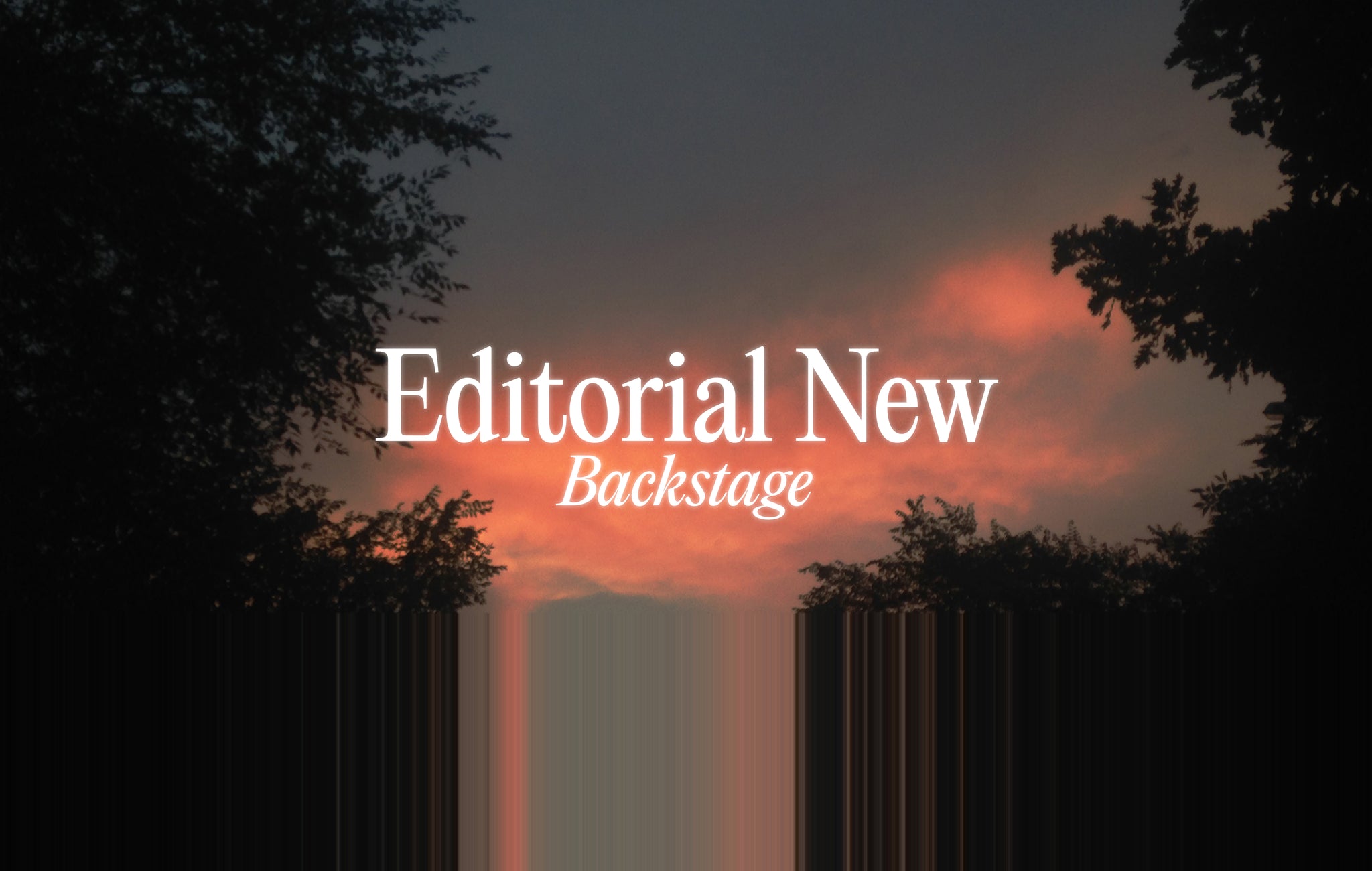
Welcome back to backstage. The series where we dive into the ins and outs of the behind-the-scenes of designing typefaces. And this time, the focus is on a Pangram favourite, Editorial New.
It really does seem to pop up everywhere – from small indie publications (feat. a shameful plug to our own self-published endeavour) and premiere magazine titles to fashion giants and sportswear juggernauts. At its core, Editorial New is an elementary, narrow, serif – perhaps with a slight retro 90s font feel. However, it truly seems to have flown beyond the confines of its letterforms, having struck a chord at the core of the contemporary design scene, favoured by students and creative directors alike. From the elegance of the lighter weights, to the indulgent curves of the heavier weights, Editorial New has almost too much to give!
But where did this powerhouse of a typeface come from? Well, we’ve chatted to the dynamic duo Mat and Francesca about Editorial New’s storied history and the exciting future that lays ahead for it…
Mat, as the founder of Pangram Pangram, you’re involved in everything from the business side and the vision of the foundry to designing the typefaces themselves. How do you strike this balance, and how has it evolved as Pangram has evolved?
M: It’s exactly about that; Balance. Doing everything mostly by myself as the Foundry was growing was definitely a balancing act but I think the key was to stay focused on the goals and make sure I kept creating and getting inspired rather than getting too lost in all the administrative layers. The design and creation part of the foundry has always been the number 1 priority for me.
Onto Editorial New! Simply put, it’s an absolute fan favourite. Versatile but recognisable, genuinely elegant but equally sturdy, refined as body copy but personality-full as a headline — its flexibility has clearly struck a chord with designers! What was the inspiration behind it? How did you start drawing it?
M: The original goal was simple: I wanted to create a super versatile, slightly retro serif. Something inspired by the 1980s ads with the likes of Garamond and other curvy, generally tightly-spaced serifs. This was the base for it and it grew into something of its own shortly after drawing a few letters!
Were there any key turning points in the development of the typeface? Moments where you felt like everything fell into place? Or was it more of a gradual process?
M: I’d say a lot of typefaces I design are a gradual process. They rarely end up the way I imagined them at first. The process generally takes some time and since I continuously try to stay inspired, there are always new ideas coming in during the journey. That being said, I think that when the basic set of the Thin Master was done, I really felt good about the complete type and its potential!
Hey Francesca! One thing about typefaces is that they’re never really done — Type Designers constantly seem to rework and improve them. For Editorial New’s 2.0 version, how did you refine the typeface, and what improvements would designers see when they use it?
F: My main focus has been on the rebalance of weights & proportions, especially in the darker instances. These corrections are something that one can easily spot. However, other minor refinements wouldn’t be visible to a non-type designer’s eye but improve the font’s general comfort.
You also worked on the italics for Editorial New; how does that drawing process differ from drawing the uprights for a serif?
F: I love drawing italics, it comes naturally to me, and I have fun with it. That is one of the first significant and personal differences. There are many kinds of italics also, and a True Serif Italic is what I love to draw most. True italics means not just slant — the construction of the letter changes entirely from the upright.
How do you find the process of developing and refining a typeface that already exists in some form? Does the process differ from when you design one yourself from scratch?
F: First of all, my interventions were in conversation with Mat. Before making the changes, we review them together. Editorial New was already very successful; our focus was to improve the font to the maximum while respecting its design. In revising an existing font, I use much of my experience as a type designer and less of my creativity. While designing the italics, I could express both.
And back to you, Mat! If you were pairing Editorial New with another typeface, what style would you use, and what typeface would you pair it with?
M: Well, the obvious answer is a nice Grotesk font, something like Neue Montreal, haha! But, obvious aside, Editorial New was made to be very versatile like I mentioned earlier so pairing really depends if you use it as a headline or a body text. I think it goes really well with fonts with cleaner lines, like a geometric or a more subtle sans. On the other hand, I feel it could go with a crazy cursive font but maybe that’s just me!
A simple but necessary one — what’s your favourite glyph in Editorial New?
M: Ouhhhh tough one! If I had to choose one I think it would be the lowercase k. I think it encapsulates the personality of Editorial New super well and the fact that it’s disconnected adds to the tension.
F: I am very much in love with the italic ‘v’.
And finally, what’s next for Editorial New? We’ve heard whispers about an Editorial Old on the horizon… can we get a sneak peek?
M: Yessss! The idea behind Editorial Old is to create a version where the New feeling has been eroded and washed with the passing of time. A sort of homage to the retro part of Editorial New. Giving it more organic and fluid almost melted curves and ligatures.
This gives us a whole new typeface with a completely unique personality. Here’s a little sneak peek but it should arrive at Pangram very soon! Can’t wait to release this one.